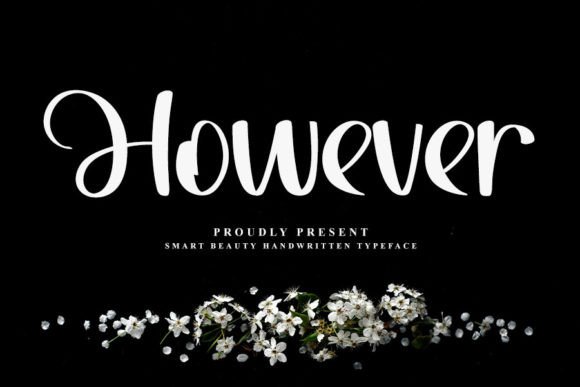
Prepare to be enthralled by However, a script font that's more than just a font - it's an experience. Its exquisite curves and playful strokes will ignite your creativity and transform your designs into captivating works of art. However is not just another font, it's an invitation to let your imagination run wild.
Unleash the Power of Visual Allure:
With However, every letter becomes a visual masterpiece, captivating your audience with its undeniable charm. Its intricate details and elegant flow will make your designs stand out, leaving an unforgettable impression.
Ignite Emotional Connections:
However is not just a font, it's a storyteller. Its soft, inviting strokes evoke a sense of warmth and nostalgia, creating an emotional connection with your audience. Whether you're designing a wedding invitation, a birthday card, or a social media post, However will add a touch of authenticity and sentiment that resonates with hearts.
Make a Statement with Unique Designs:
With However, your designs will speak volumes, even before the words are read. Its distinct character and individuality will set your work apart, making it impossible to ignore. Whether you're creating logos, banners, or flyers, However will elevate your designs to new heights, ensuring they leave a lasting impact.
However Is Perfect For:
• Logos: Give your brand a unique and memorable identity with a logo that reflects your style and values. However's playful elegance will set your business apart, making it instantly recognizable.
• Wedding Invitations: Create wedding invitations that capture the essence of your special day. However's soft, romantic strokes will add a touch of elegance and charm, setting the tone for an unforgettable celebration.
• Birthday Cards: Make birthdays even more special with cards that are as unique as the person you're celebrating. However's playful personality will add a touch of fun and joy, making their day truly memorable.
• Social Media Posts: Engage your audience with social media posts that are visually stunning and emotionally captivating. However's captivating style will make your posts pop, attracting attention and boosting engagement.
• Thumbnails: Create eye-catching thumbnails that entice viewers to click and explore your content. However's distinct character will make your videos and blog posts stand out in a crowded online landscape.